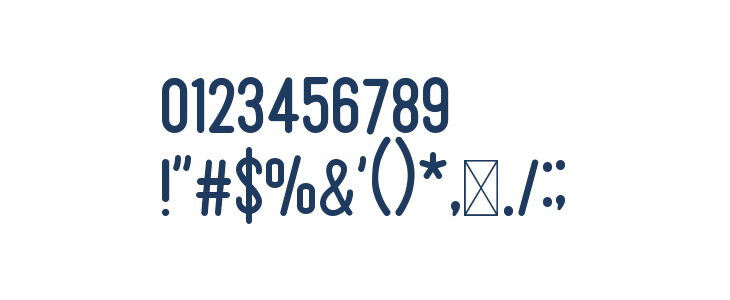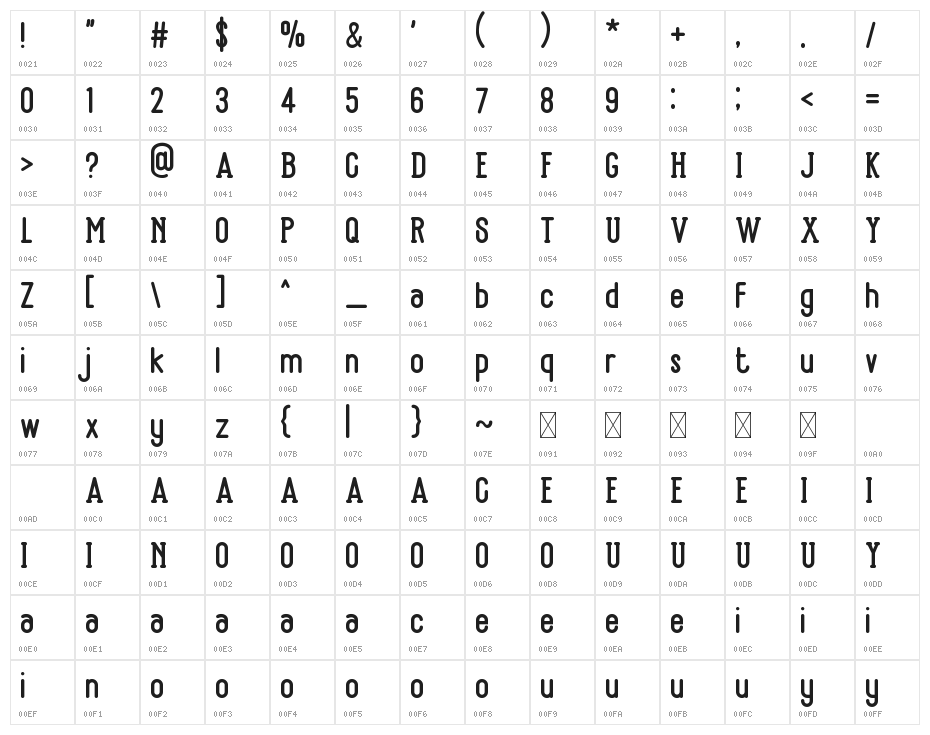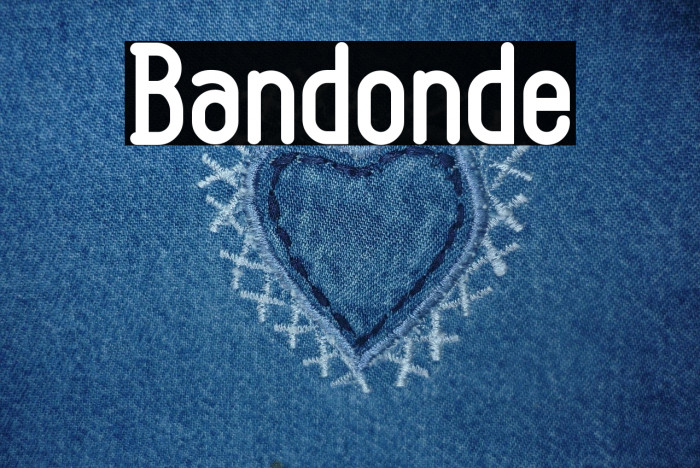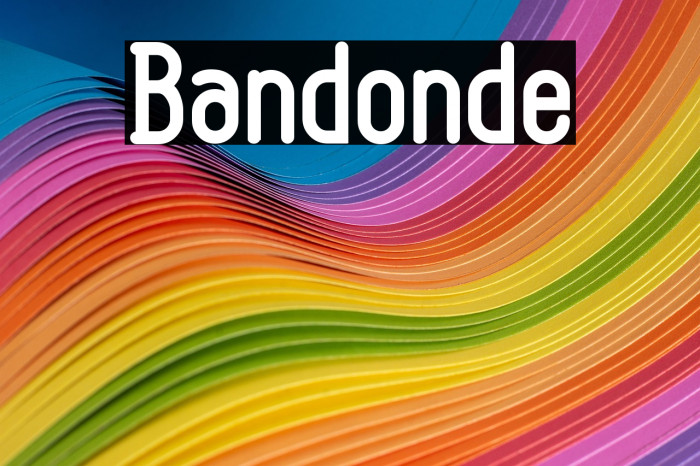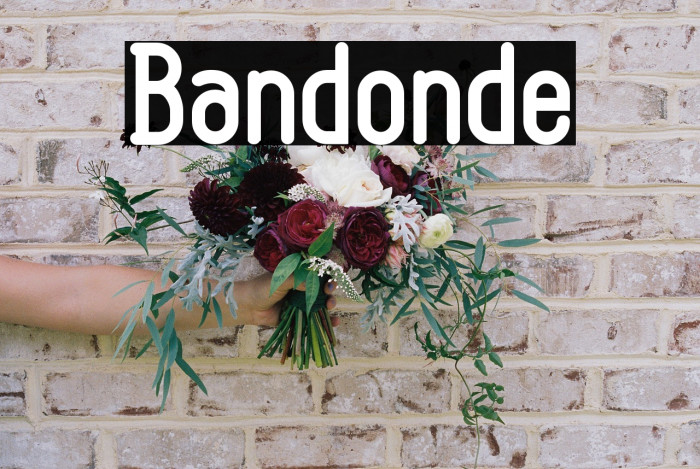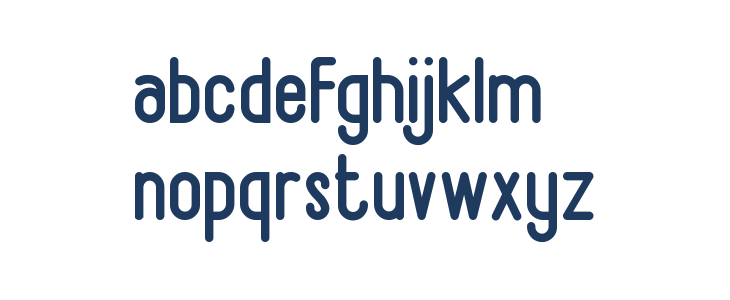
Bandonde Font
Bandonde Description
This font features a playful and rounded design, characterized by its smooth curves and consistent stroke width. The uppercase letters are bold and prominent, while the lowercase letters maintain a friendly and approachable appearance. The numerals are clear and easy to read, matching the overall style of the alphabet. Special characters are well-integrated, maintaining the same rounded and bold aesthetic. This font's design is both modern and versatile, making it suitable for a variety of creative projects.
| Proposed Projects | Ideal for children's books, playful branding, posters, and creative digital content. |